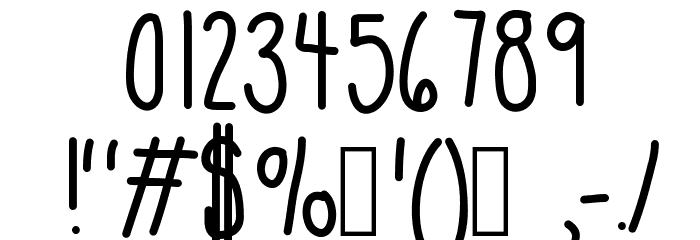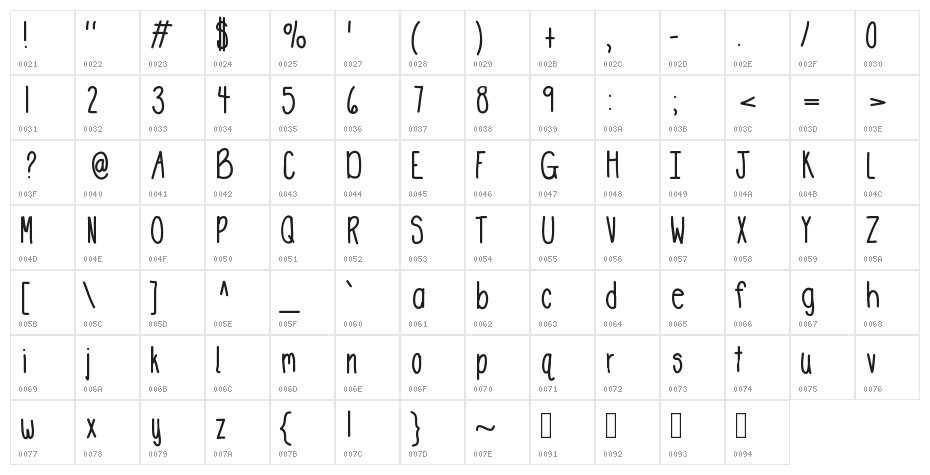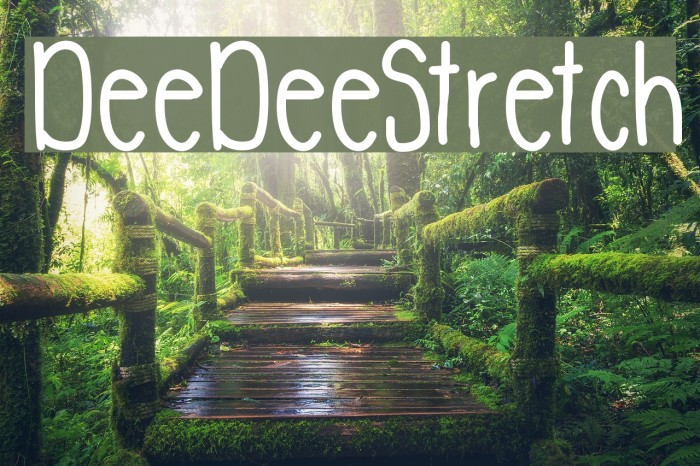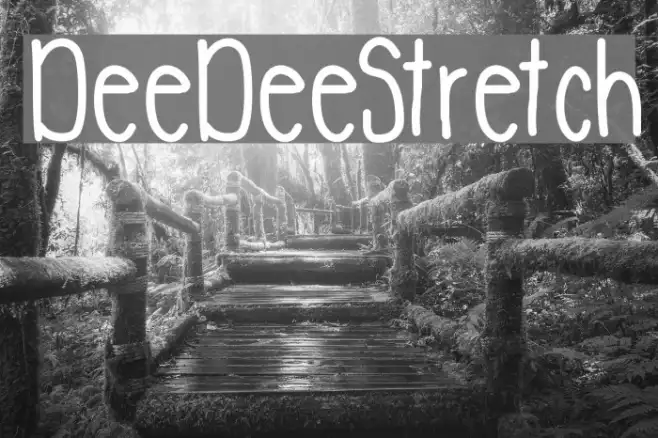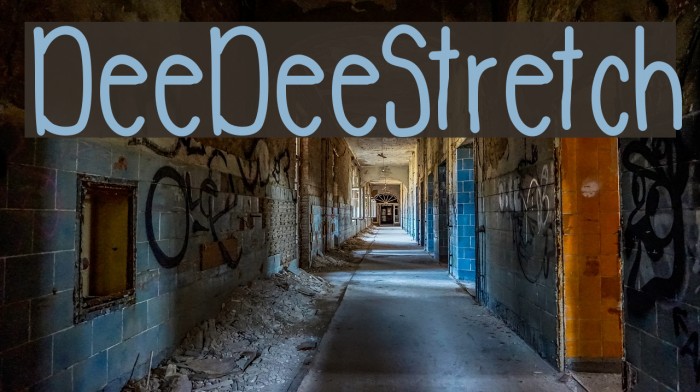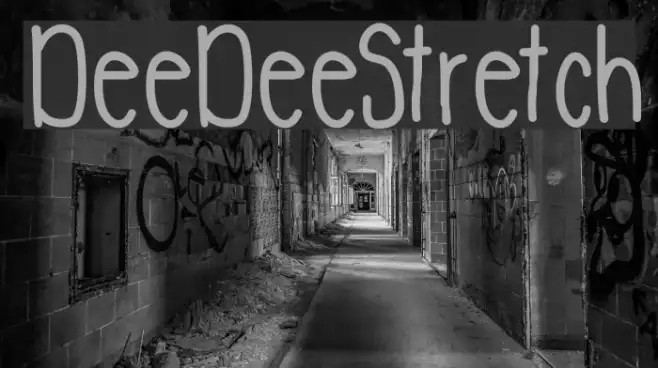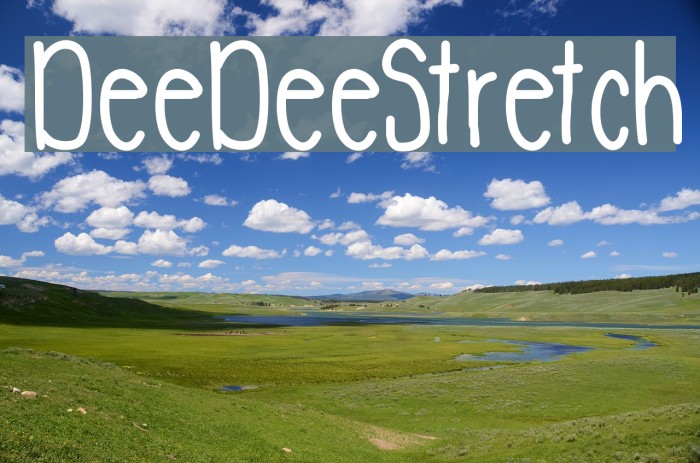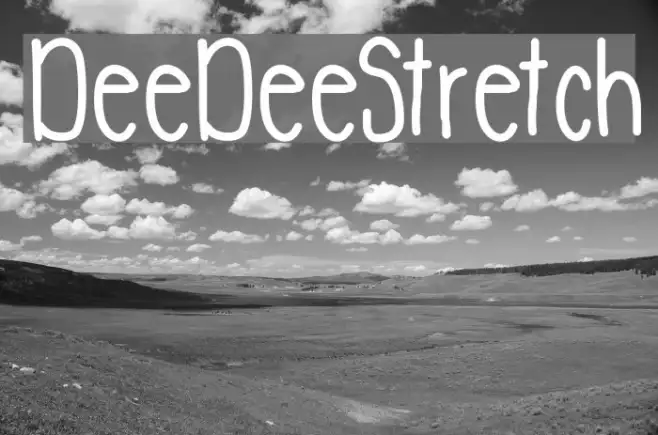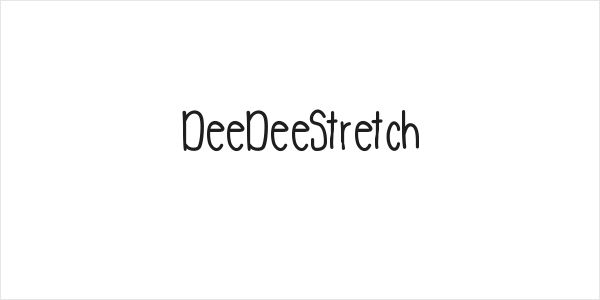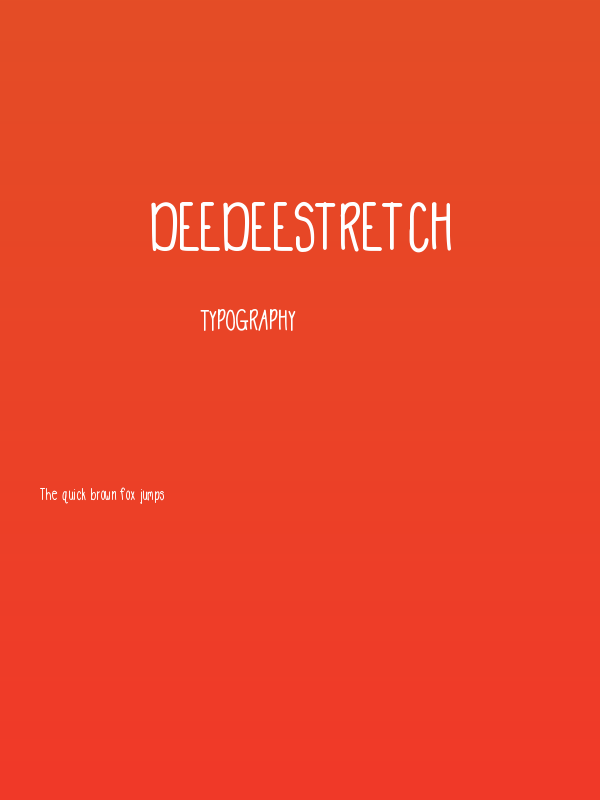
DeeDeeStretch Font
DeeDeeStretch Description
This playful and whimsical font features tall, narrow letters with a hand-drawn appearance. The strokes are consistent in width, giving it a uniform look despite its casual style. The characters have a slightly stretched and elongated form, adding to its quirky charm. The font maintains a consistent baseline, with rounded edges that soften its overall appearance. It includes a full set of uppercase and lowercase letters, numbers, and a variety of special characters, making it versatile for different uses.